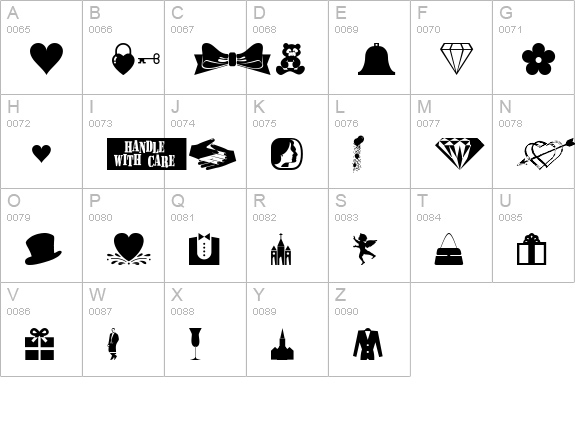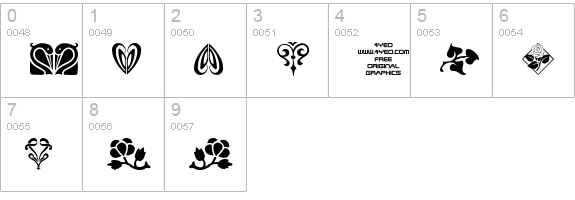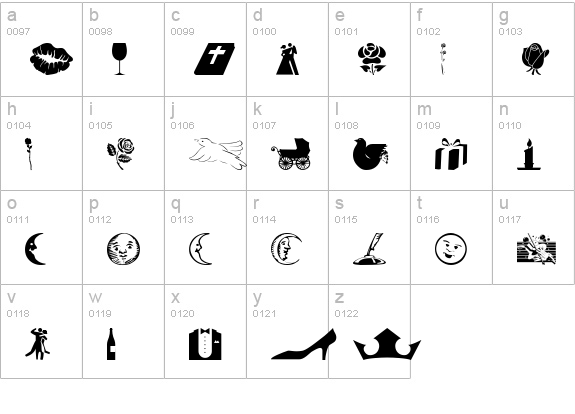
4YEOVAL Font Details
Introducing 4YEOVAL font, a versatile and modern typeface that is perfect for a wide range of design projects. With its clean lines and elegant curves, 4YEOVAL exudes sophistication and style. This font is ideal for branding, logos, packaging, posters, and more. What sets 4YEOVAL apart is its unique blend of contemporary design and timeless elegance. Whether you're creating a sleek corporate identity or a chic wedding invitation, this font will elevate your designs to the next level. And the best part? 4YEOVAL is completely free to download at FontsMarket.com. Yes, you read that right - you can get your hands on this stunning font without spending a dime. So why wait? Head over to FontsMarket.com now and add 4YEOVAL to your font collection today!